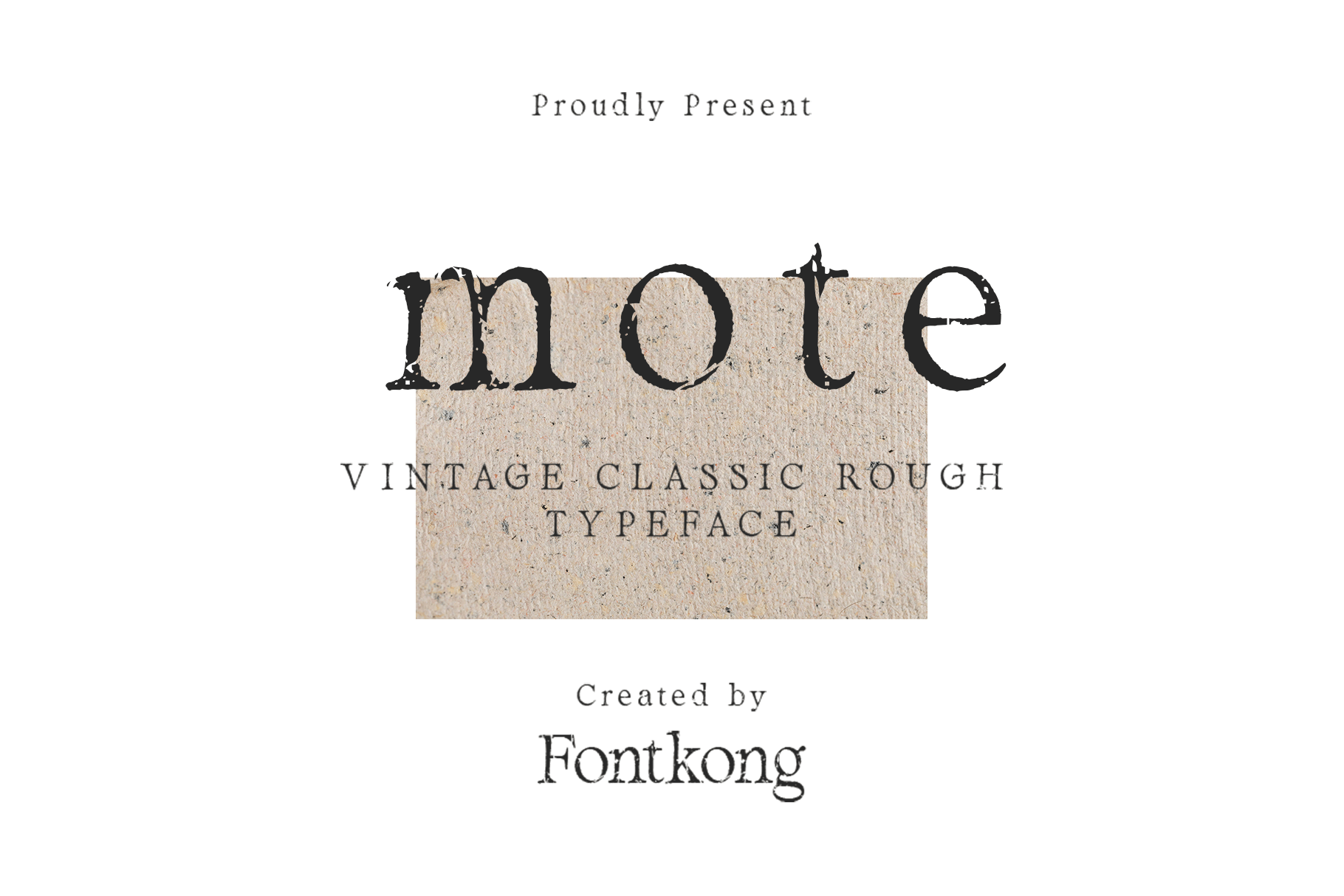
Mote - VintageClassic Rough Typeface
Mote - Vintage Classic Rough Typeface
Introducing Mote, a vintage classic rough typeface designed to capture the raw beauty of old print, worn signage, and handcrafted lettering. With its textured edges, distressed details, and classic letterforms, Mote delivers an authentic retro feel that adds depth, warmth, and history to your designs.
Mote includes uppercase and lowercase letters, numerals, punctuation, and multilingual support, giving designers the flexibility to create expressive, vintage-inspired compositions across various media. Whether you're crafting a rustic brand identity, a classic poster, or a vintage product label, Mote enhances your typography with gritty charm and enduring appeal.
Bring history and texture into your design Mote is the rough classic typeface that makes every word feel truly authentic.